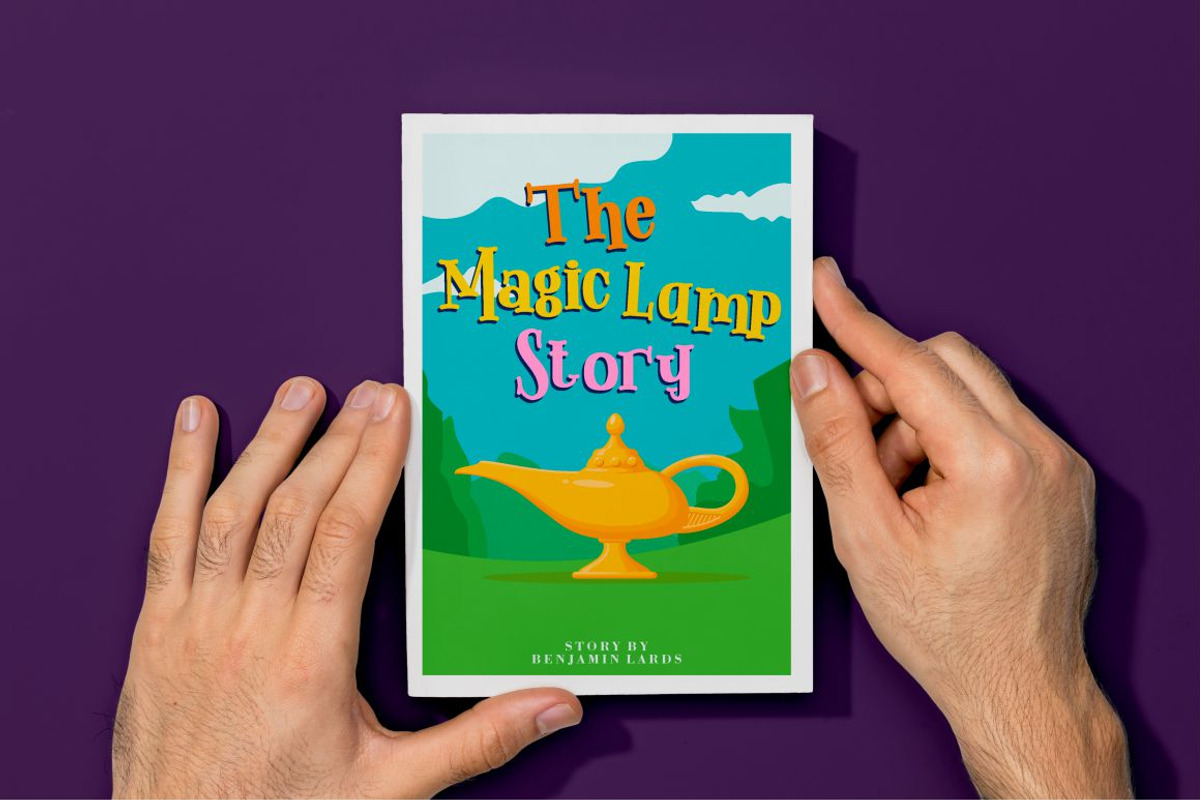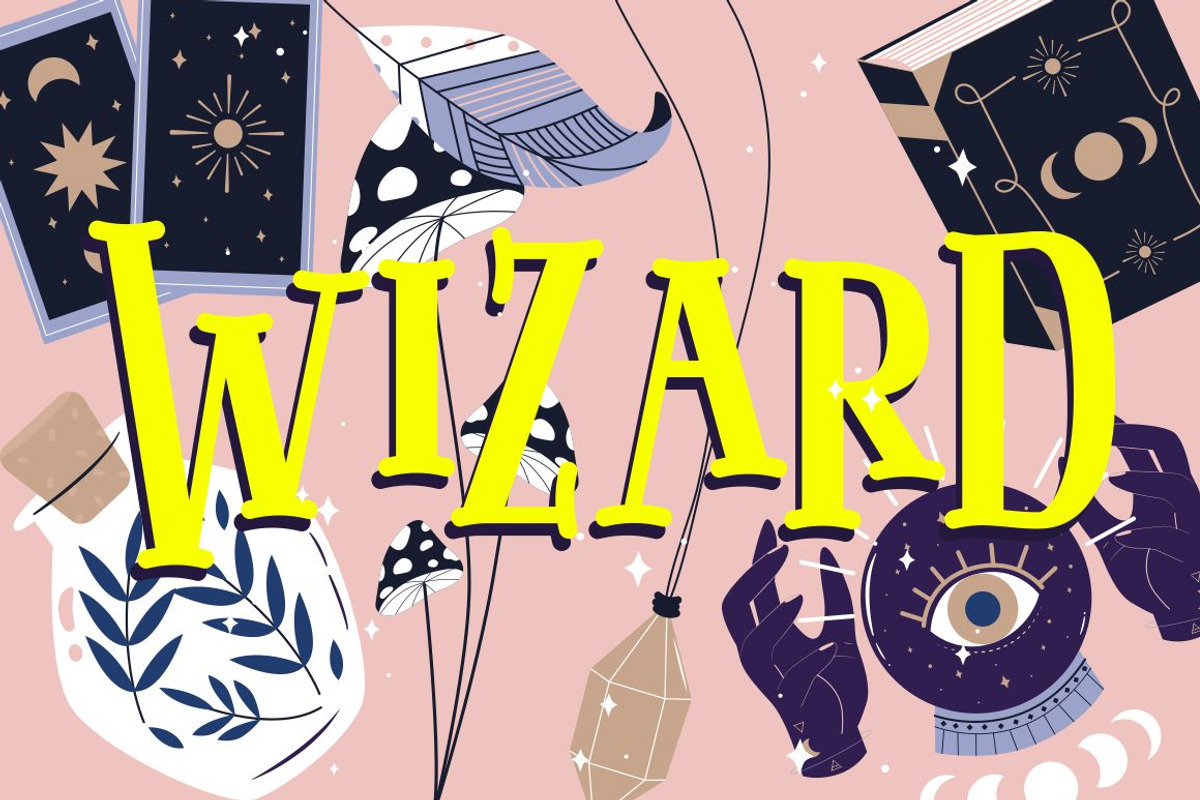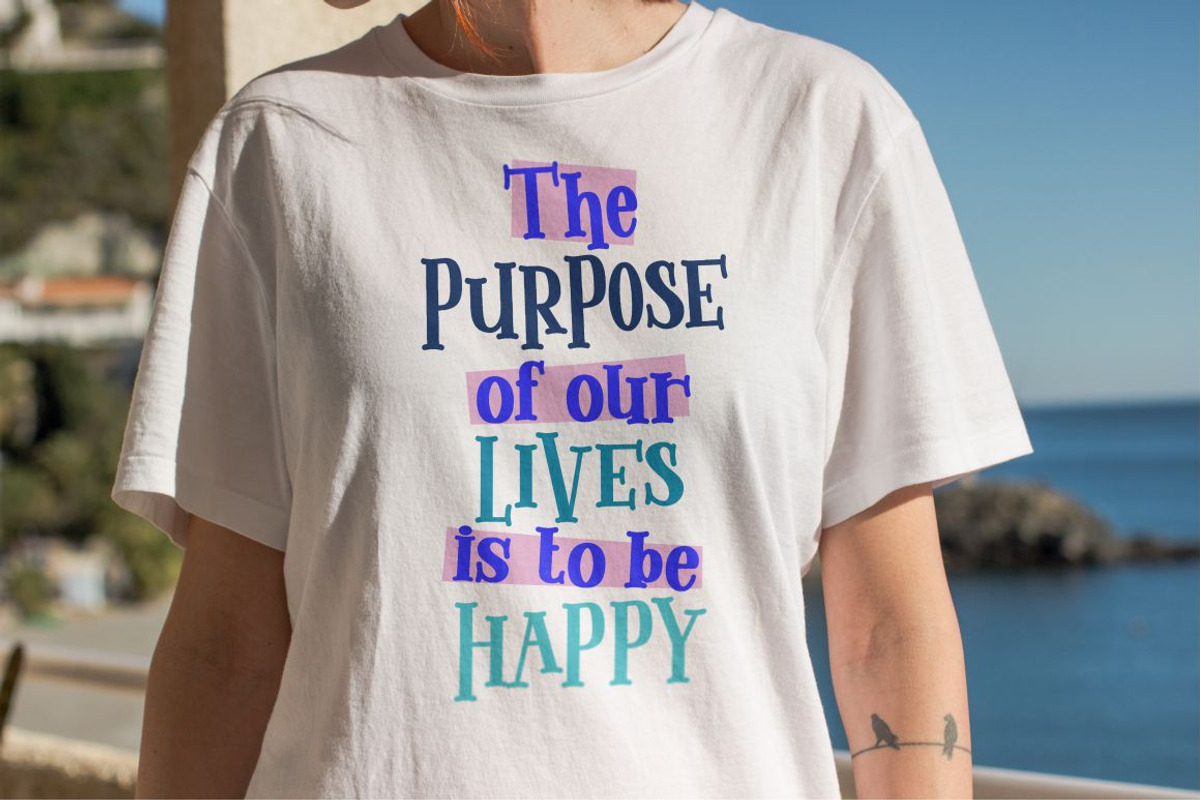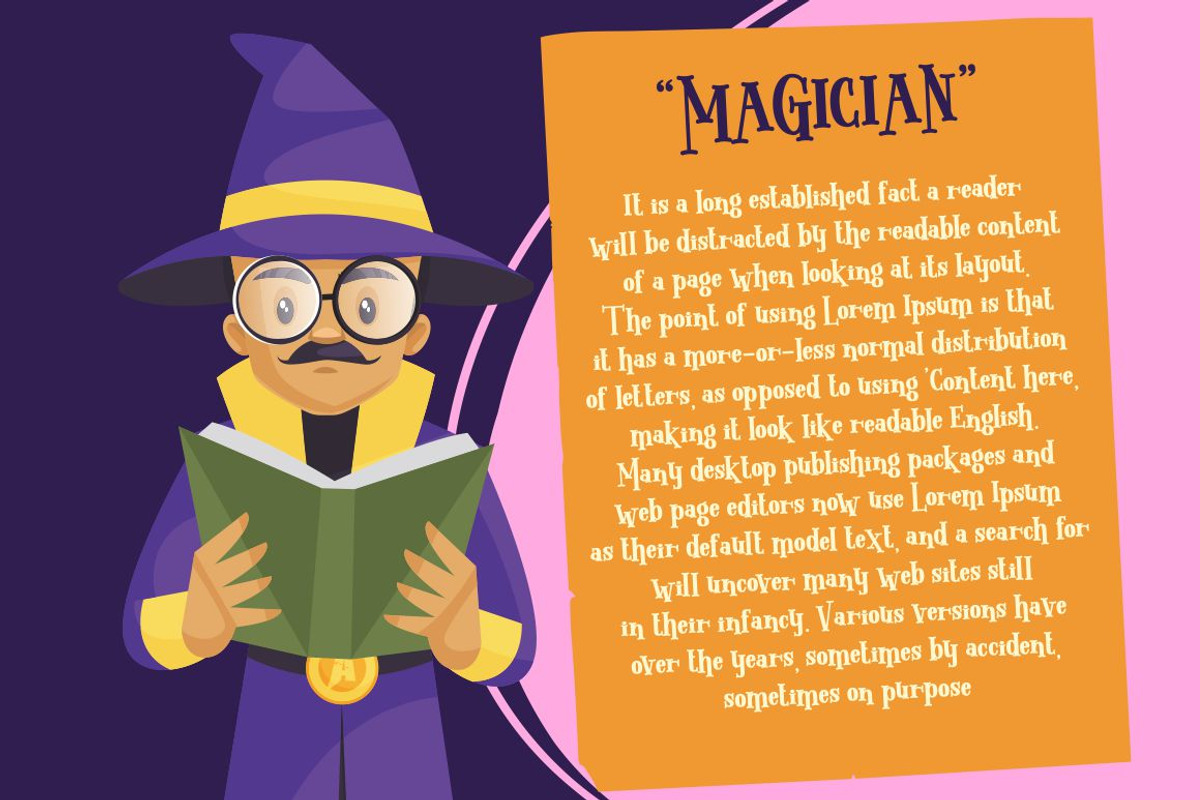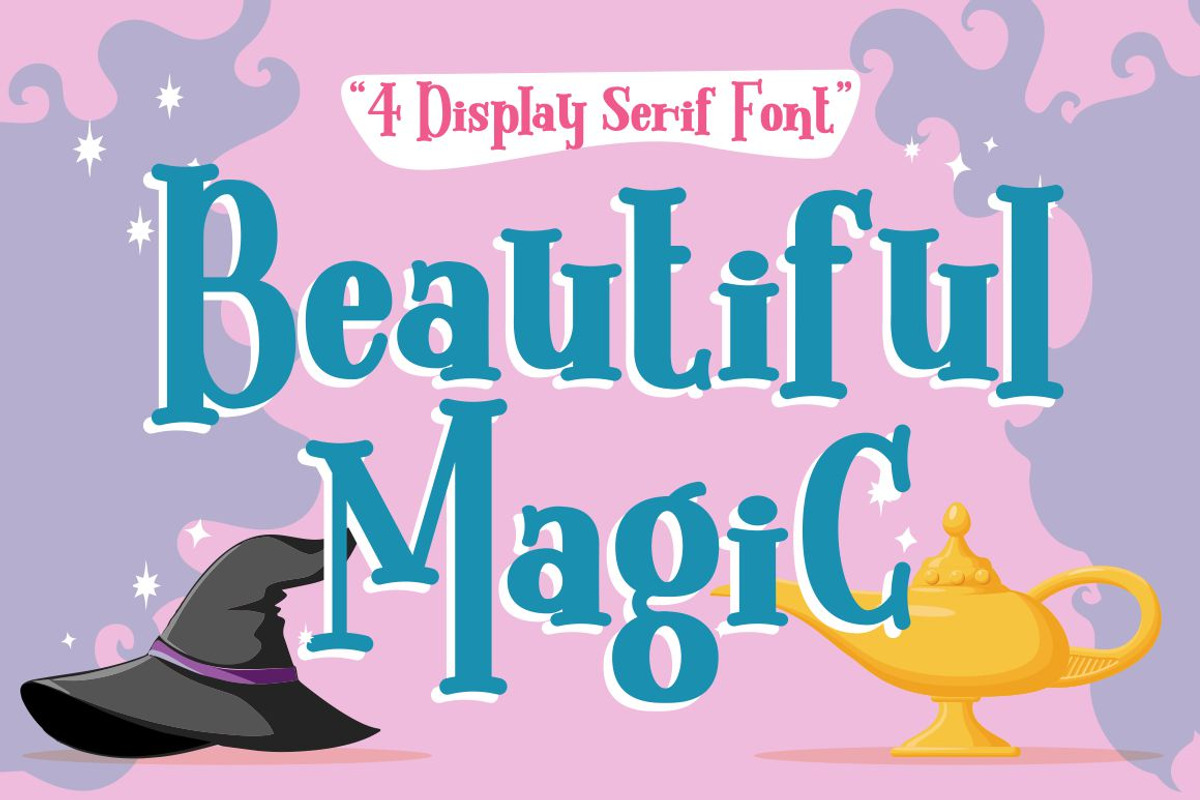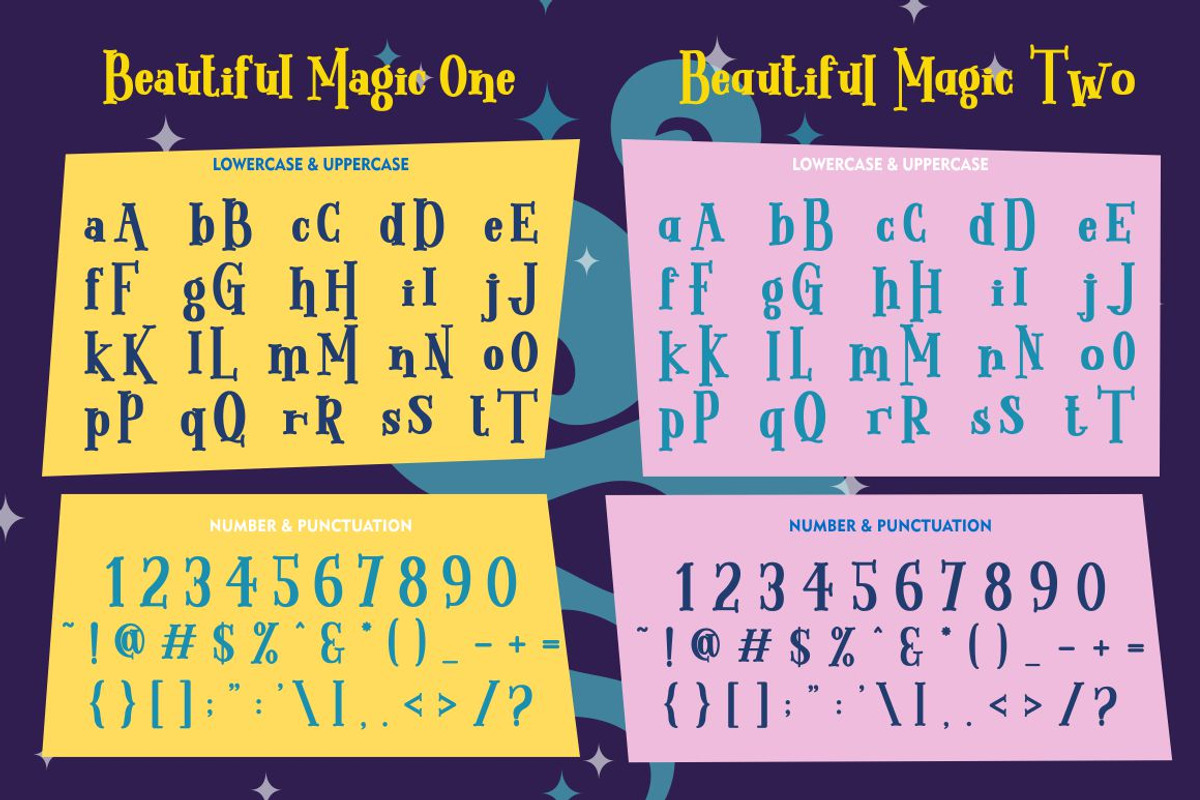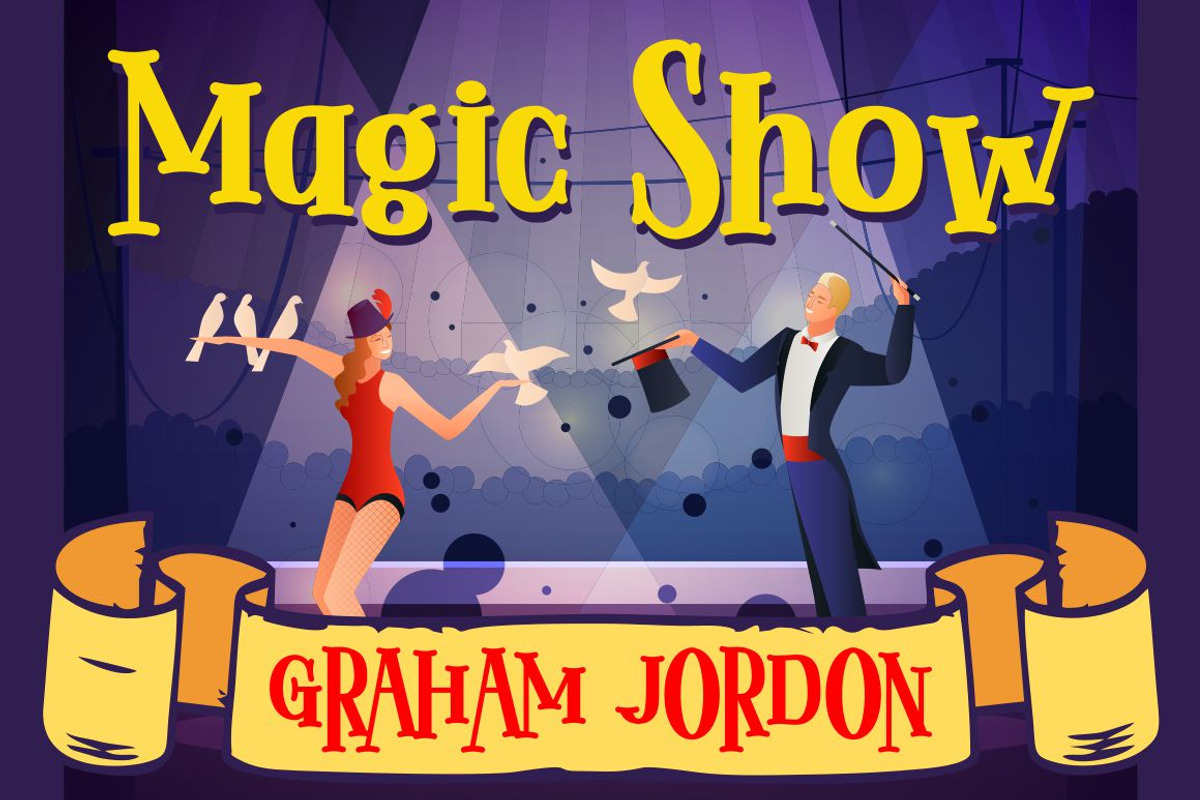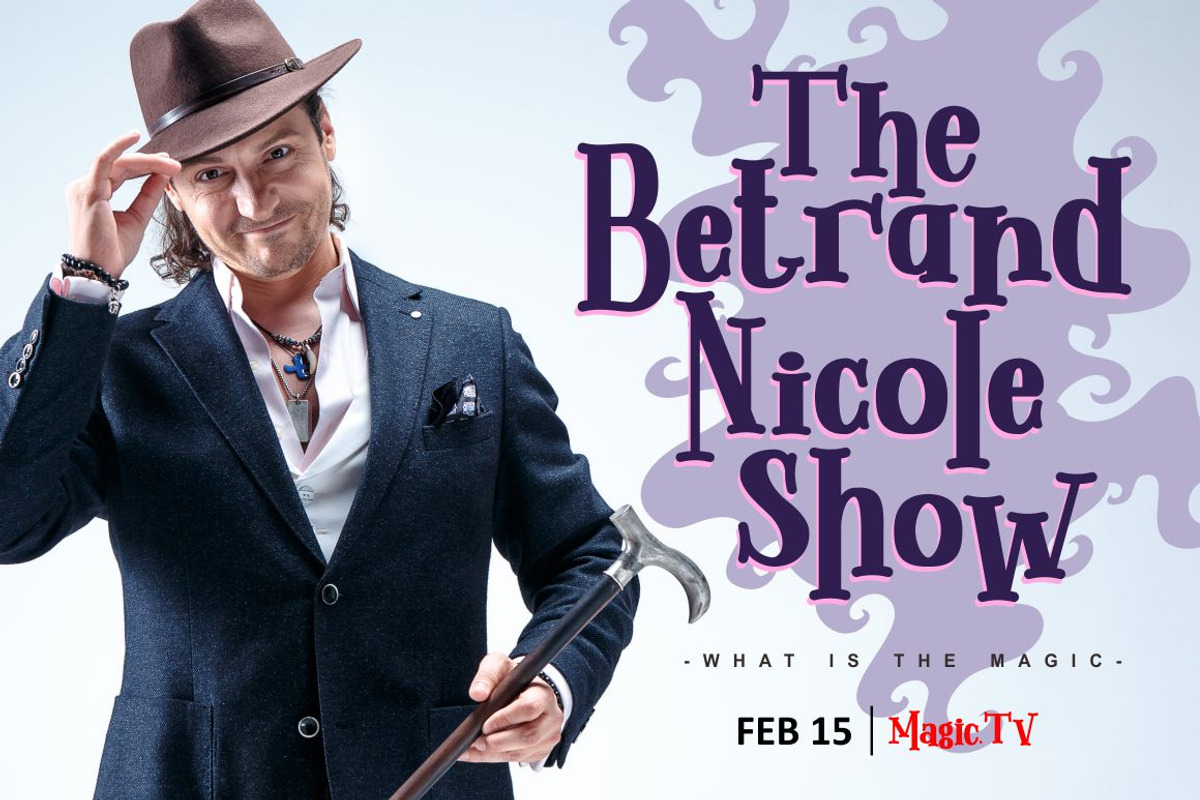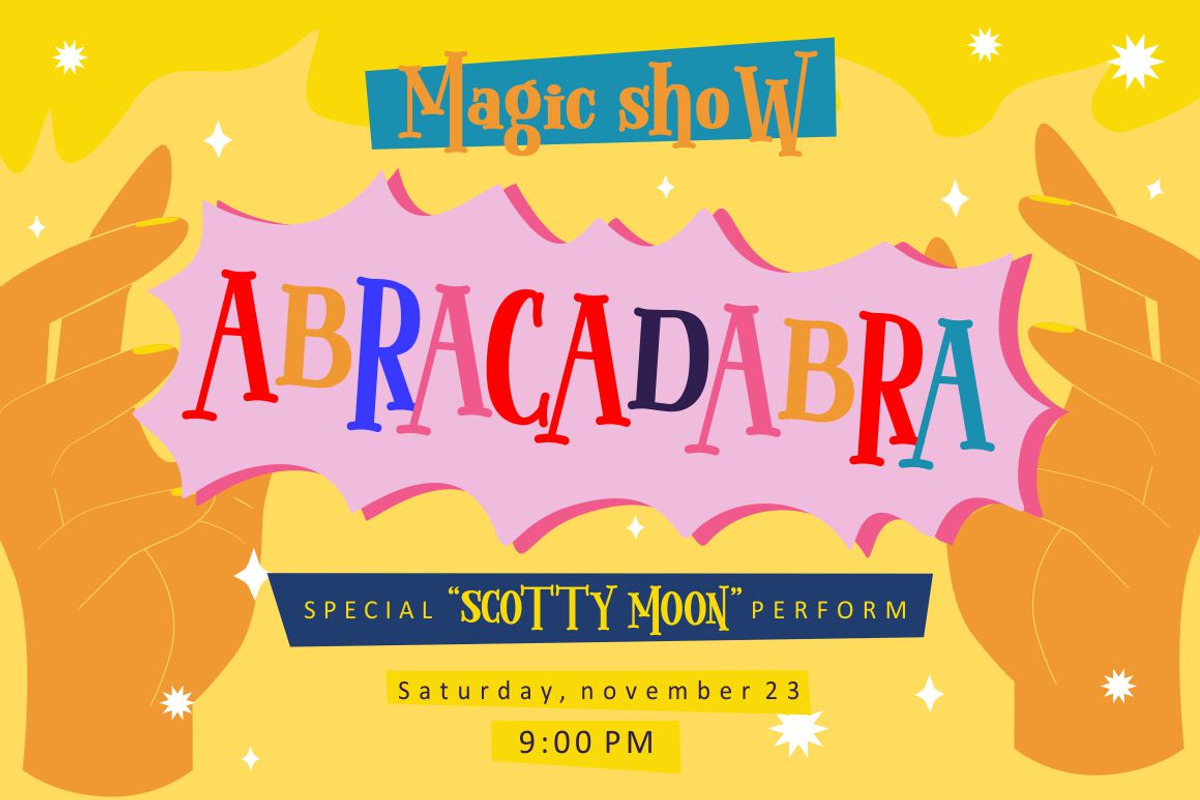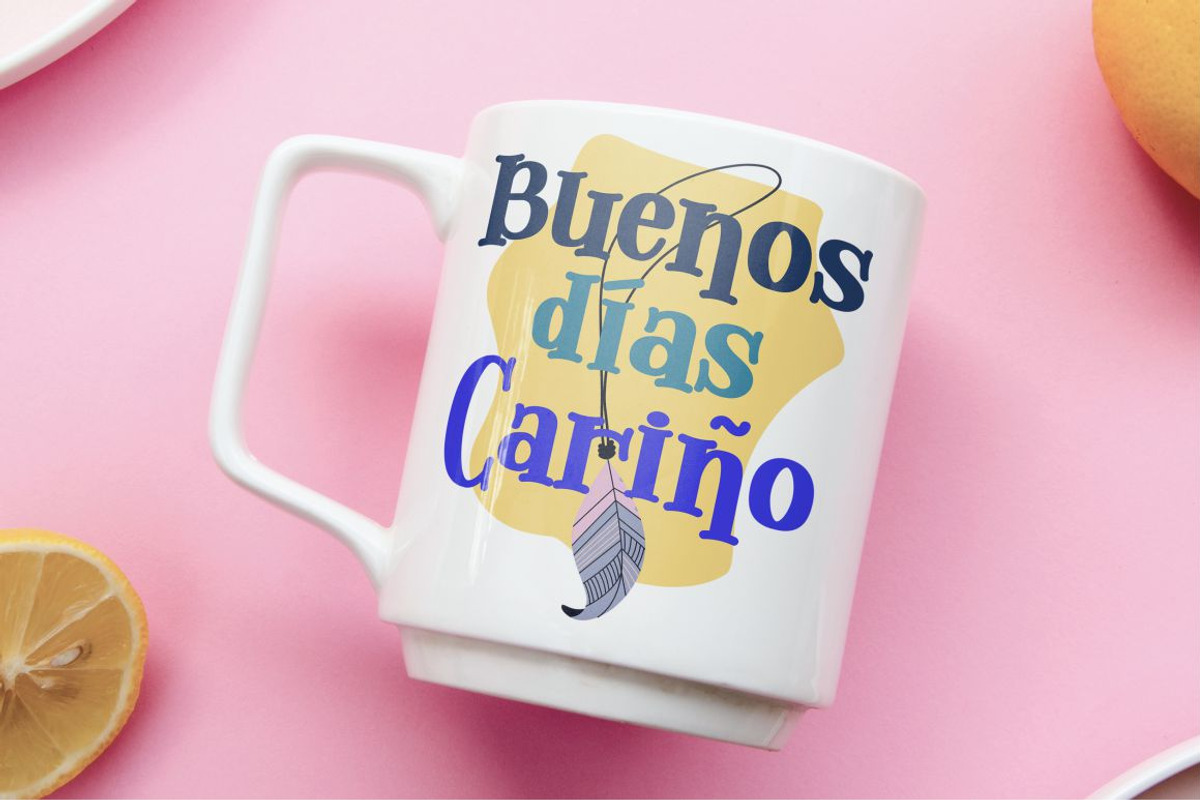
Beautiful Magic - 4 Display Serif
Beautiful Magic
Introducing a quirky display slab serif font called "Beautiful Magic", a fun and playful font with 4 different versions. What makes this font unique is the difference in the height of each character. The baseline is also not the same, so it makes this font seem irregular. Beautiful Magic best uses for title, invitation, heading, cover, poster, logos, quotes, product packaging, merchandise, social media & greeting cards and many more. This font is also support multi language.
Comes with feature :
- Number, Punctuation And Symbols
- Multilanguage Support.